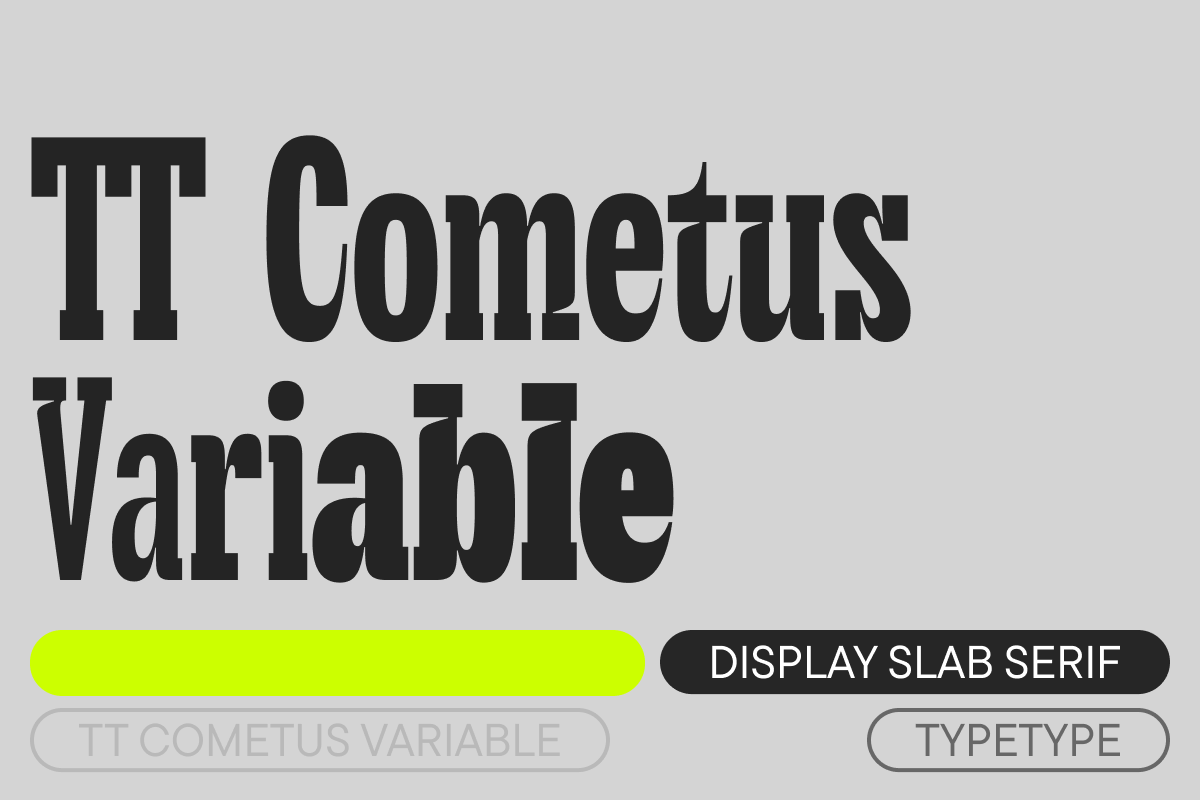
TT Cometus Variable
TT Cometus is a modern slab serif. The typeface’s name evokes the image of a comet—a powerful and weighty celestial body with a beautiful tail slicing through space at an incredible speed. This is the key to understanding this font. TT Cometus embodies a balanced personality: impressive and sturdy but energetic and dynamic at the same time. When designing this typeface, we aimed to incorporate heavy serifs typical for slabs into a modern and dynamic appearance.